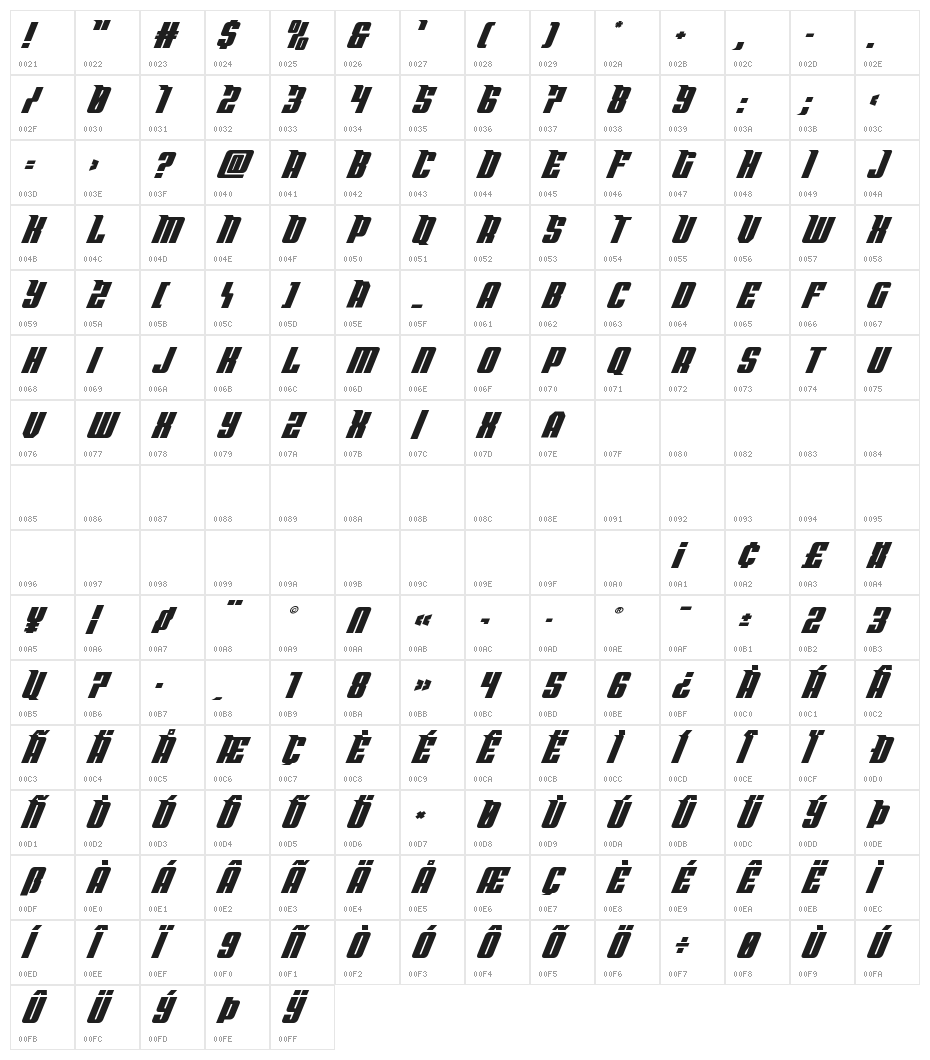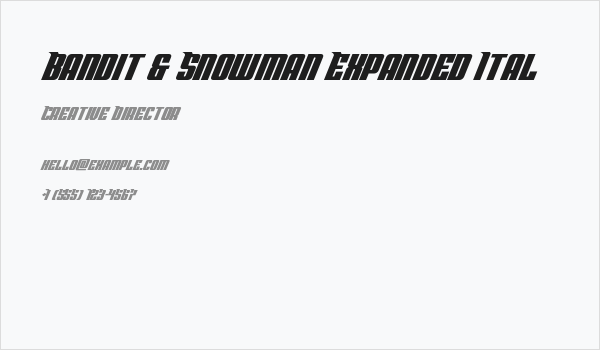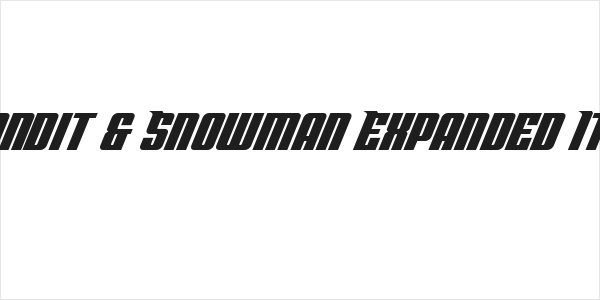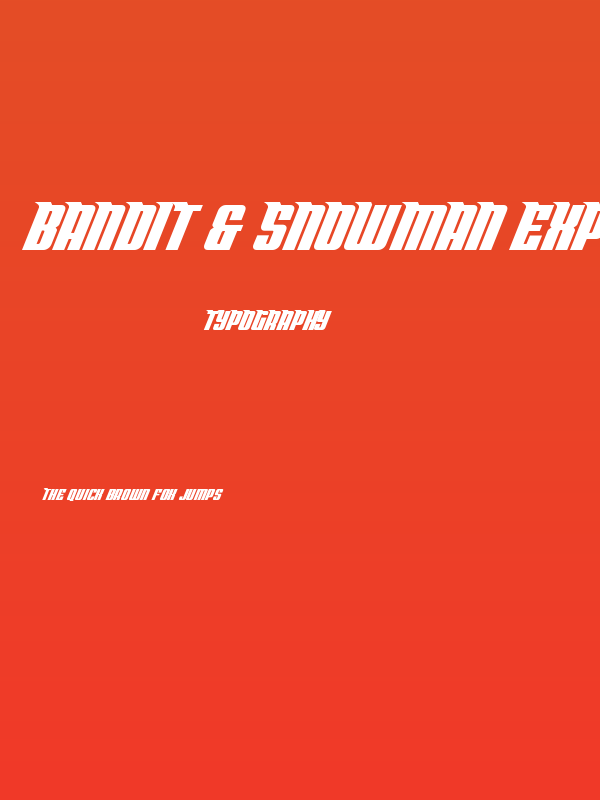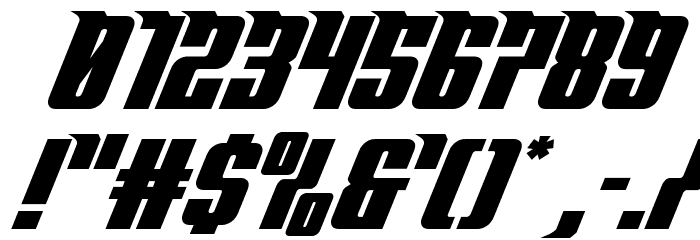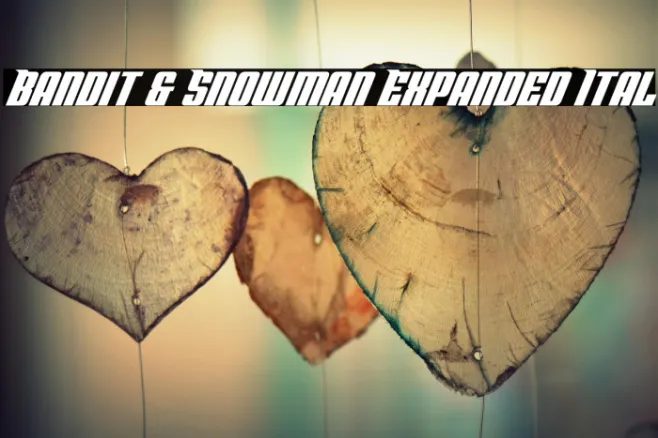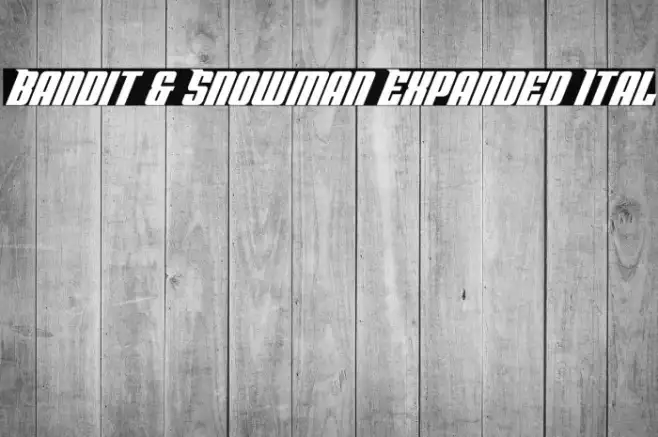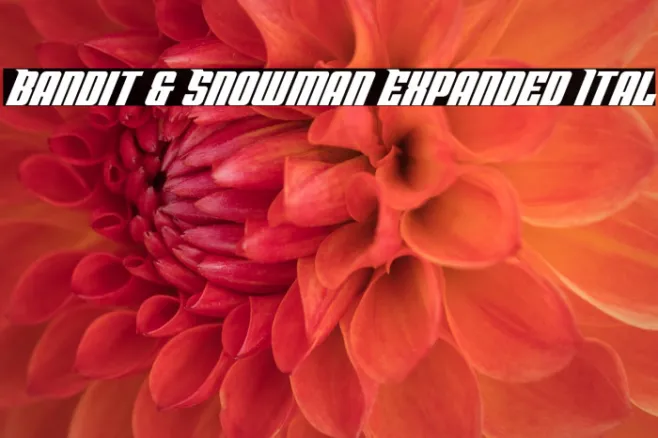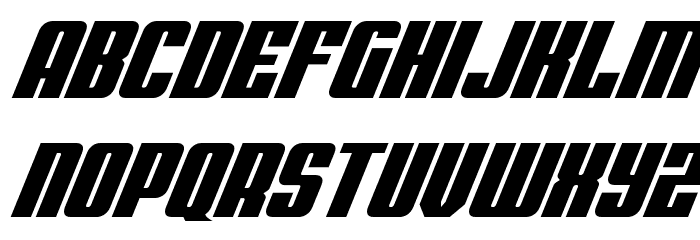
Bandit & Snowman Expanded Ital Font
Bandit & Snowman Expanded Ital Description
This font features a bold and dynamic style with a distinct slant, giving it an italicized appearance. The characters are heavily weighted, providing a strong visual impact. The expanded width of the letters adds to its commanding presence, making it ideal for attention-grabbing designs. The sharp angles and clean lines contribute to a modern and edgy aesthetic. The font maintains consistent stroke thickness, resulting in low contrast. Its unique style is suitable for projects that require a bold statement, such as posters, headlines, and branding materials.
| Proposed Projects | Ideal for posters, headlines, branding, and any design needing a bold statement. |